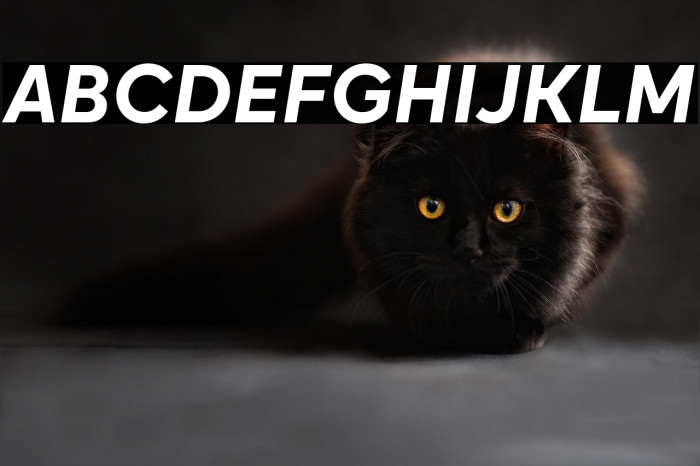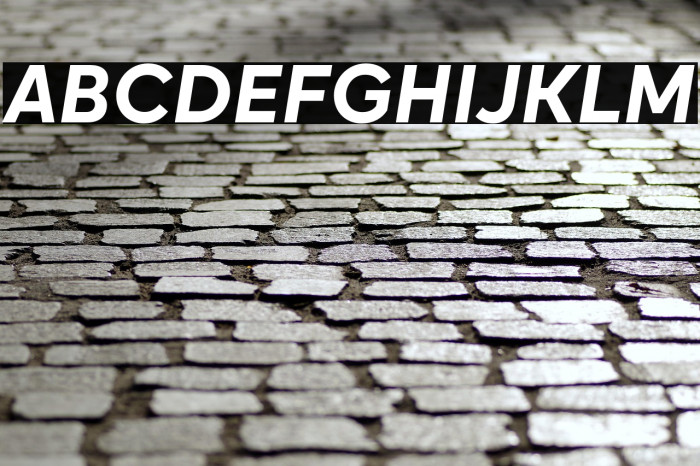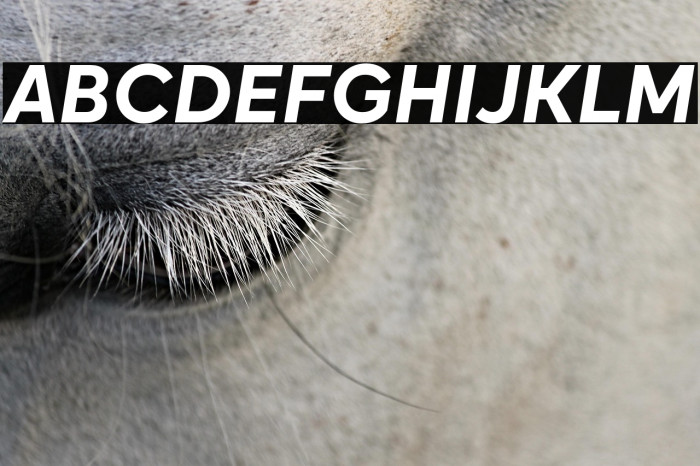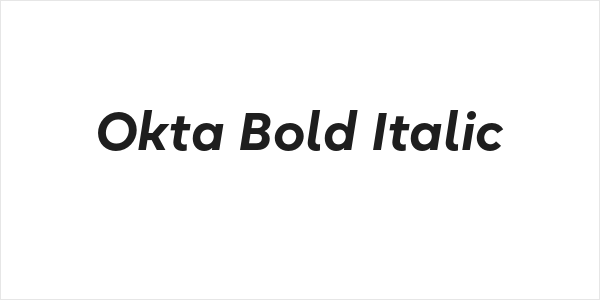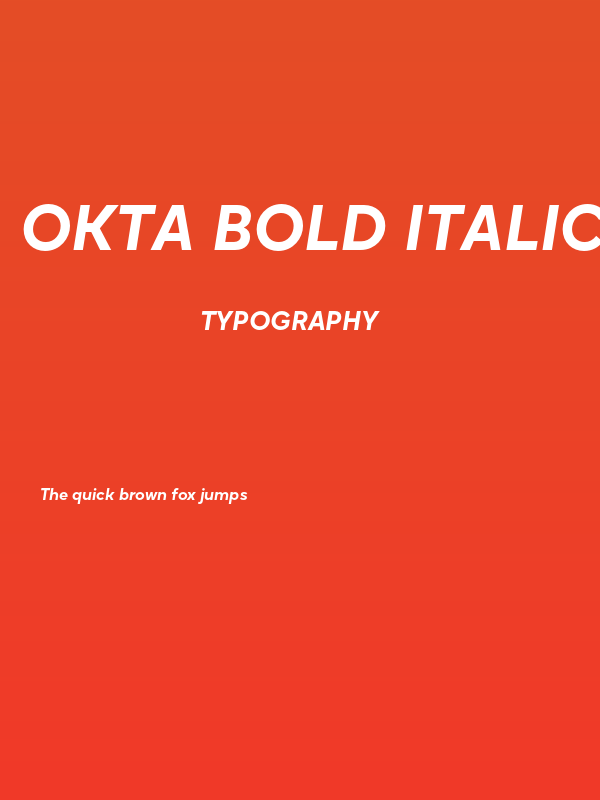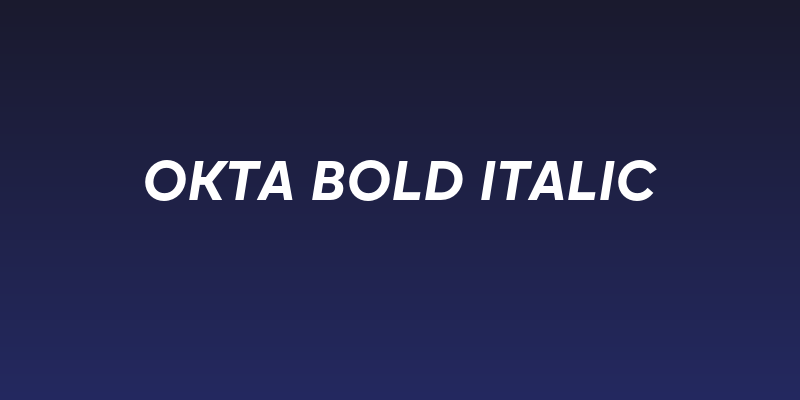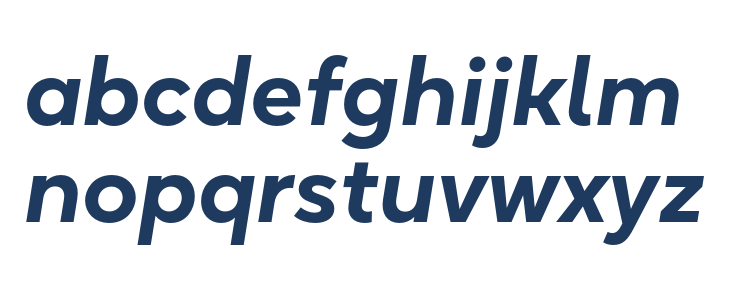
Okta Bold Italic Font
This font features a bold and italic style, characterized by its clean and modern sans-serif design. The letters are slightly slanted, giving a dynamic and forward-moving appearance. The strokes are consistent in thickness, providing a uniform look across all characters. The uppercase and lowercase letters are well-proportioned, with a slight emphasis on the rounded edges, enhancing readability. The numerals are clear and distinct, matching the overall style of the alphabet. Special characters are included, maintaining the same bold and italicized characteristics, making this font versatile for various applications.
Use CaseHeadlines, Logos, Digital Media
Proposed ProjectsIdeal for branding, advertising, and digital media projects that require a modern and dynamic look.